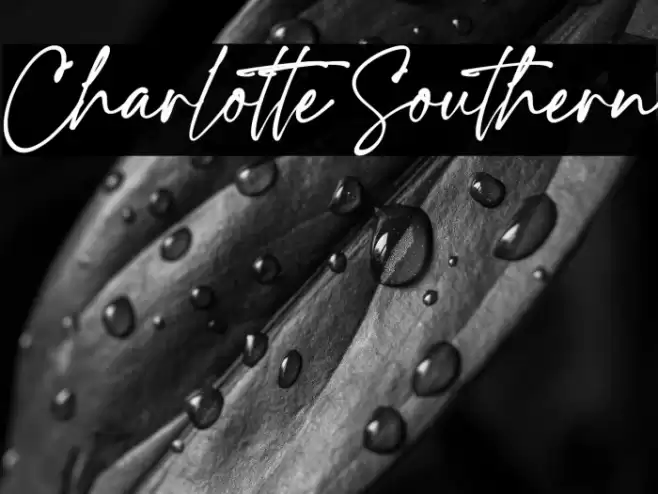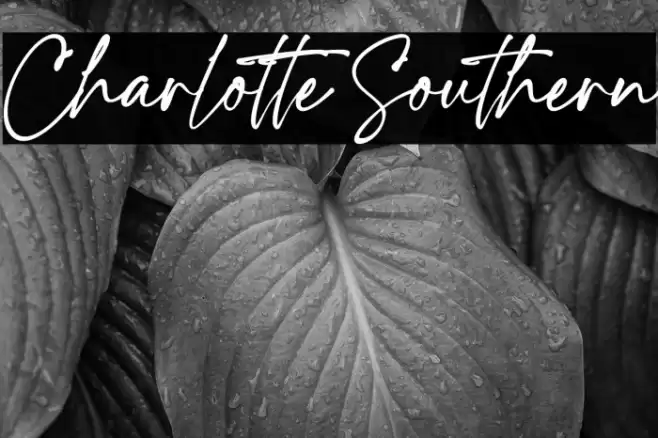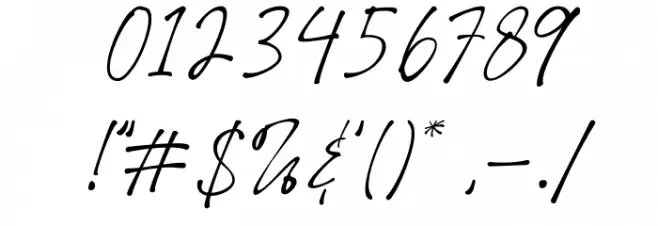
Charlotte Southern Font
Charlotte Southern Description
This font exudes a casual yet elegant handwritten style, characterized by its fluid and continuous strokes. The letters are connected in a natural flow, mimicking the look of cursive handwriting. The uppercase letters are slightly more structured, providing a nice contrast to the more freeform lowercase letters. The numerals and special characters maintain the same fluidity, ensuring a cohesive look across all characters. This font's organic feel makes it perfect for projects that require a personal touch.
A fluid, elegant handwritten font with a natural cursive style from Uncategorized fonts.
- Proposed Projects: Ideal for wedding invitations, personal branding, greeting cards, and any project that benefits from a personal, handwritten touch.
- Overall Style: Casual, Elegant
- Use Case: Logos, Invitations, Personal Branding